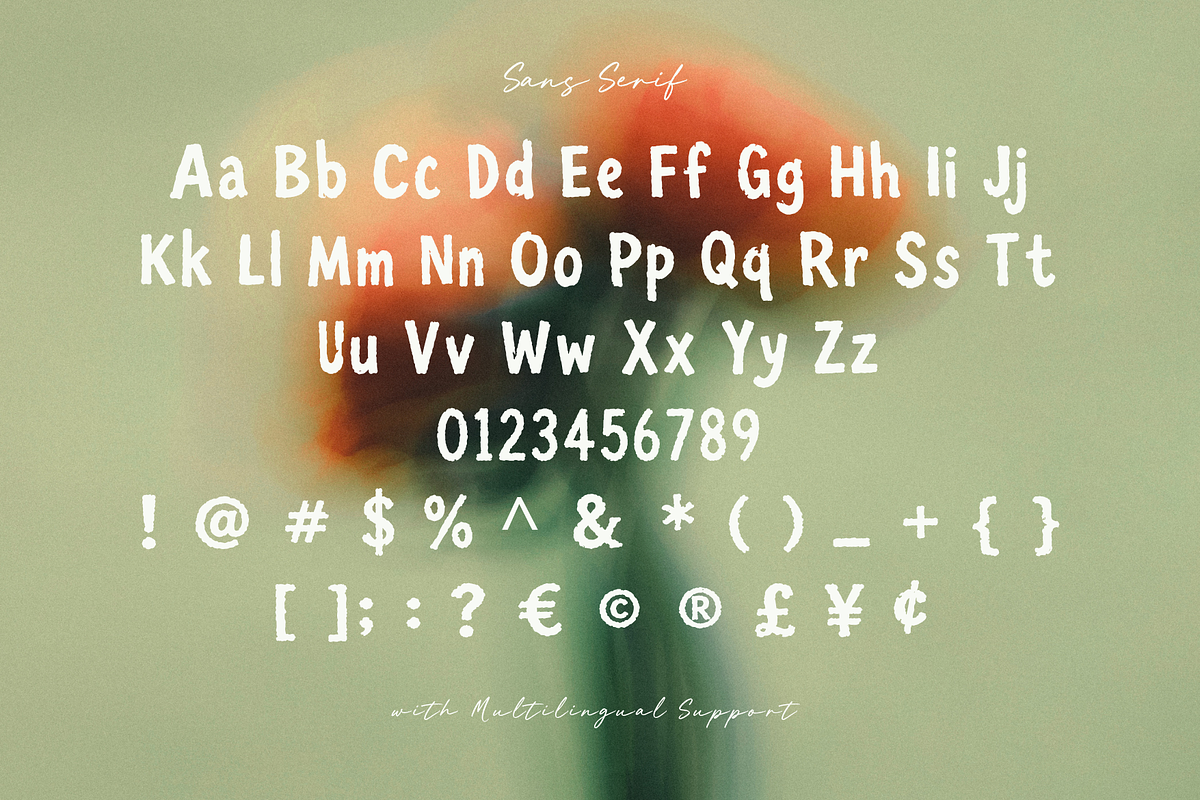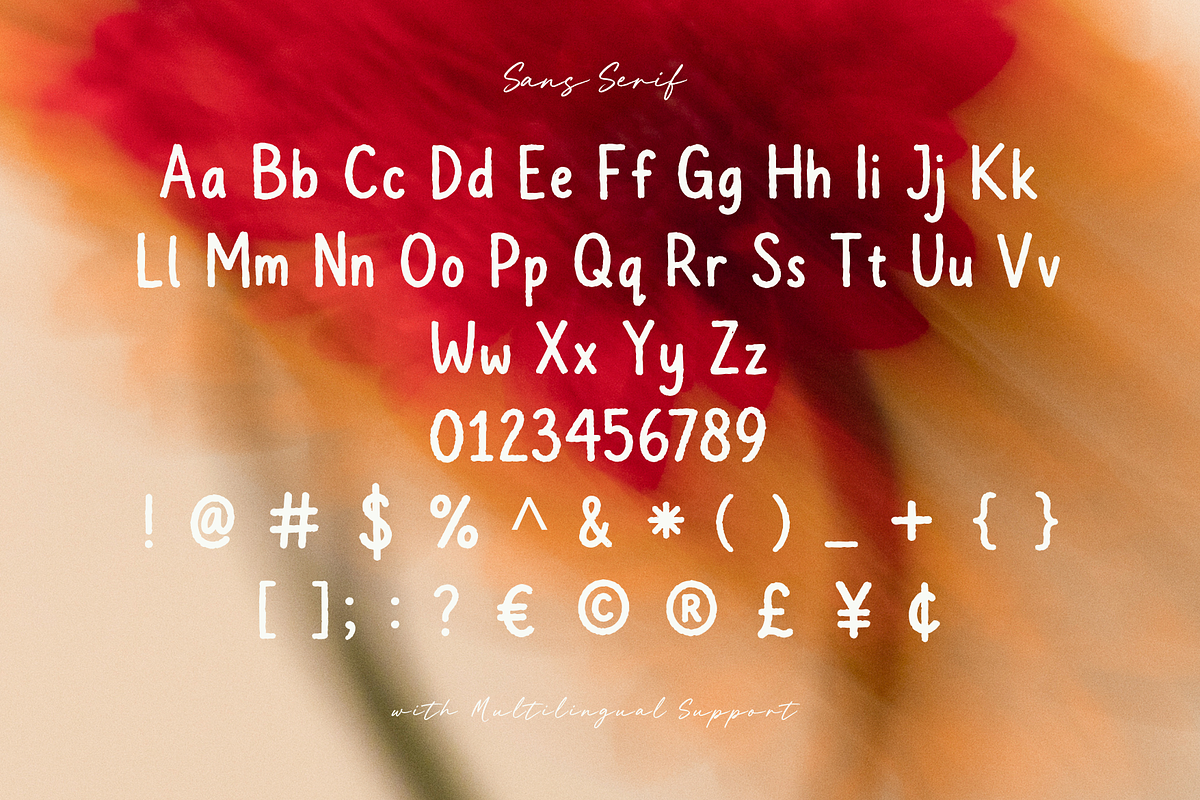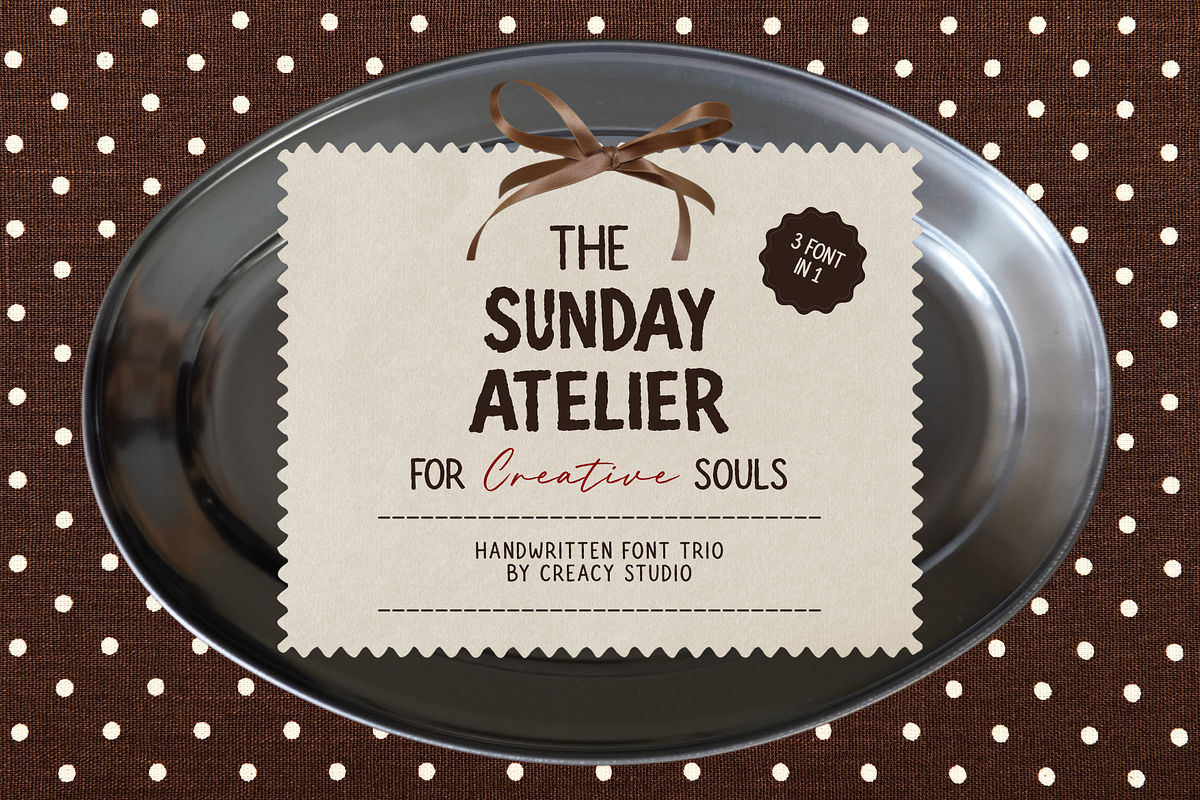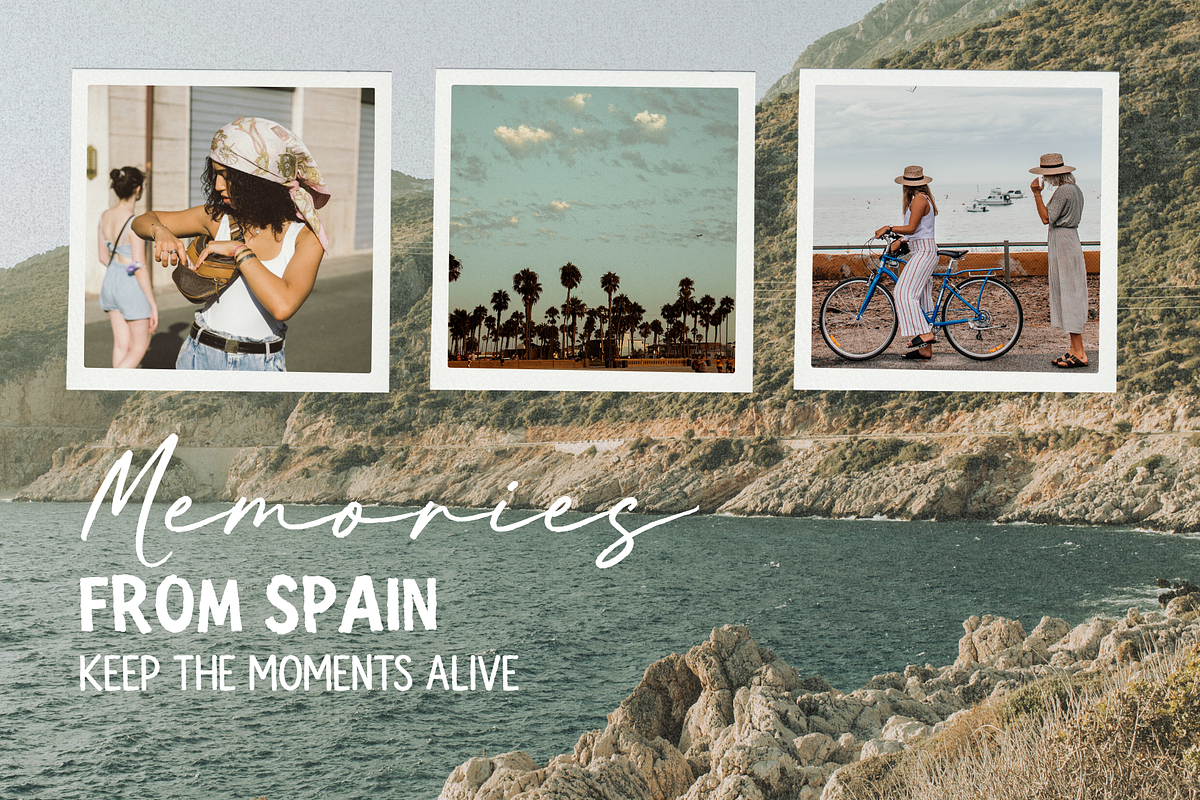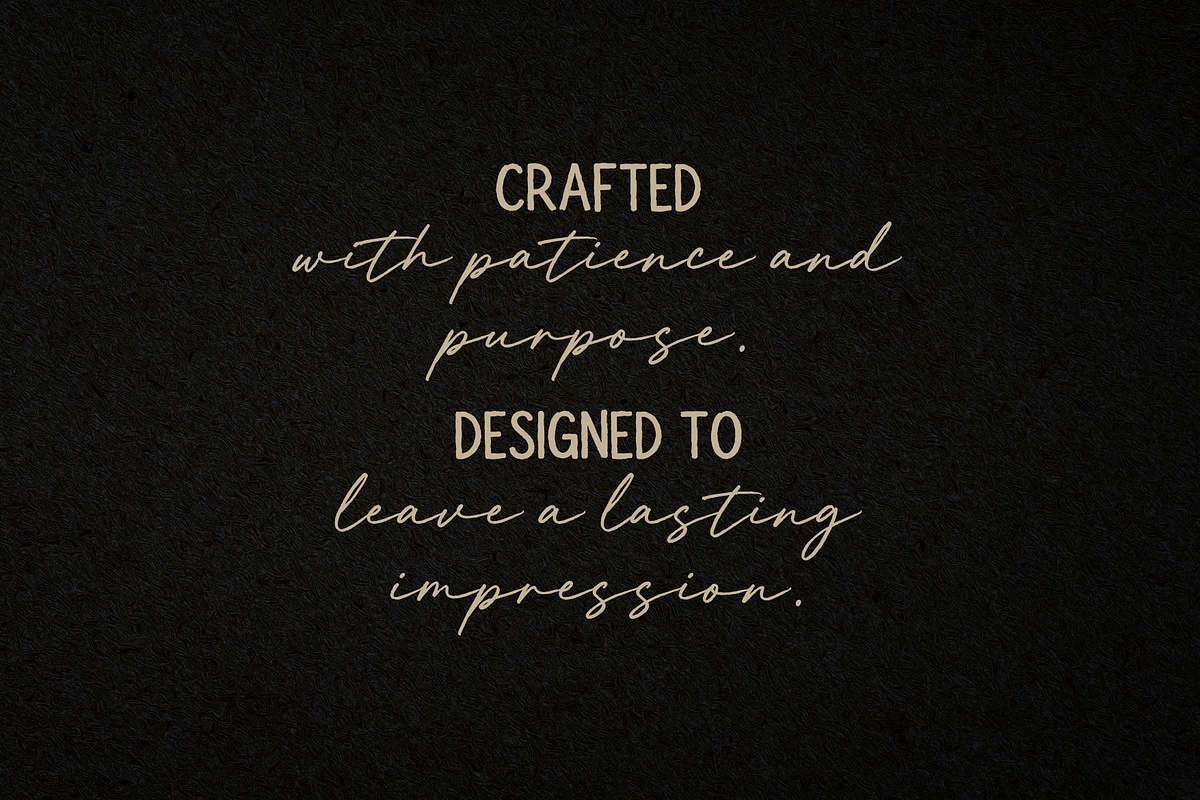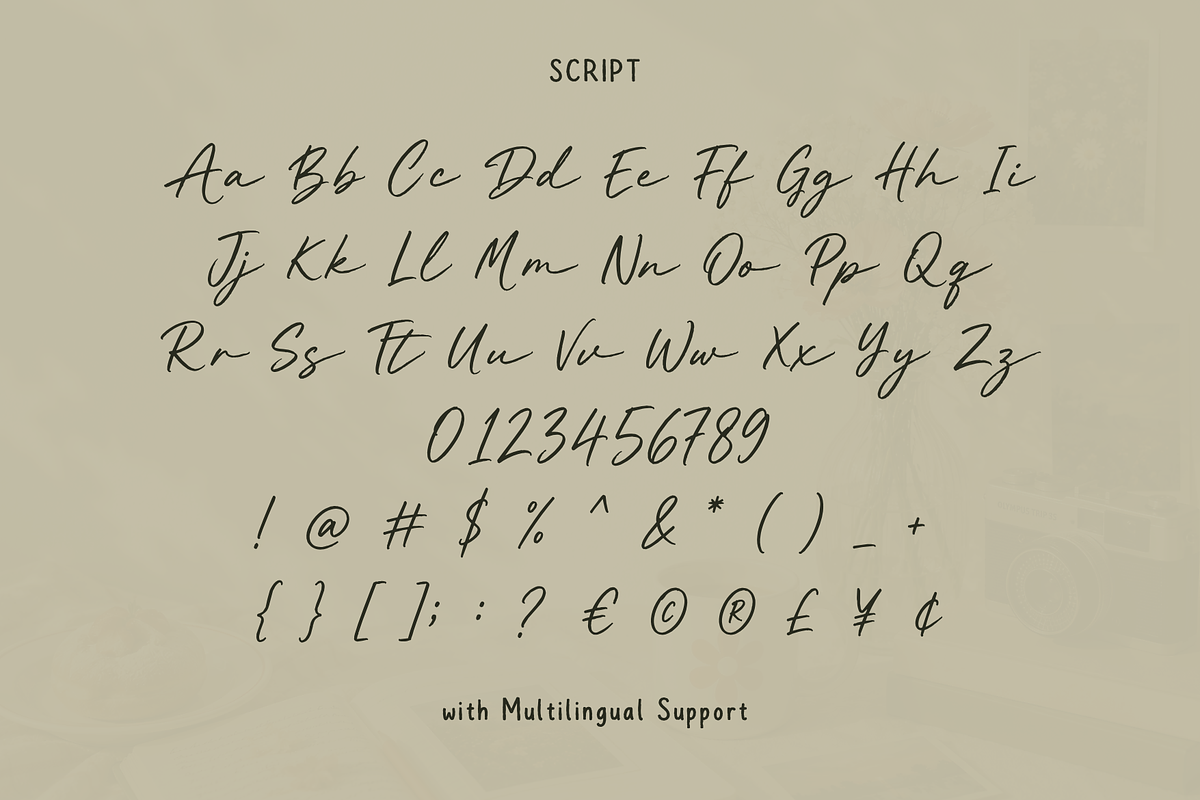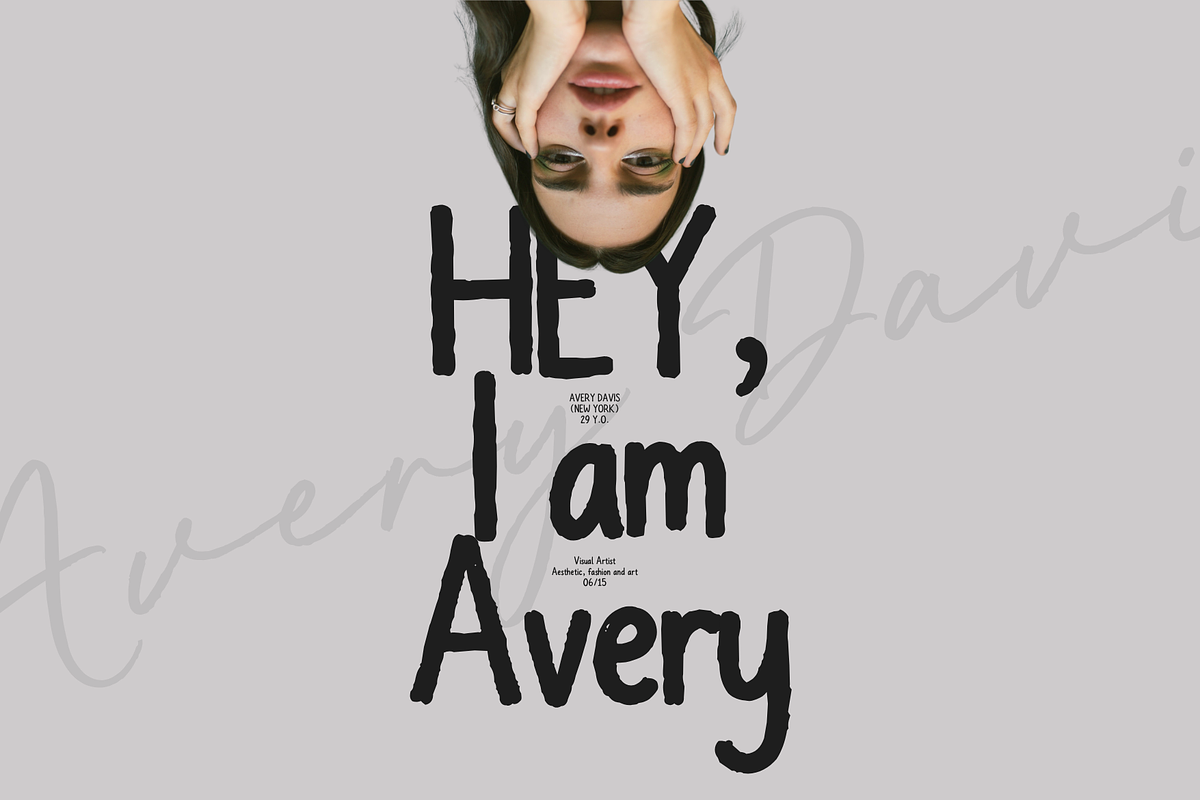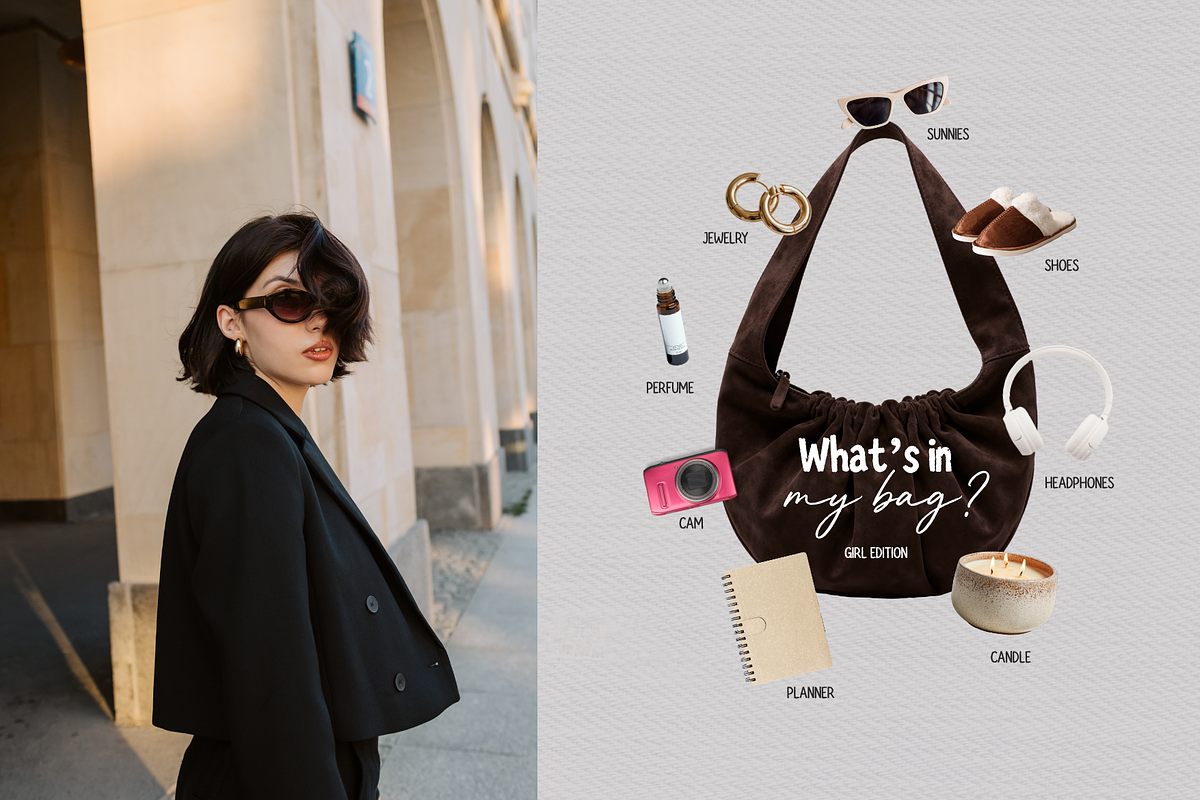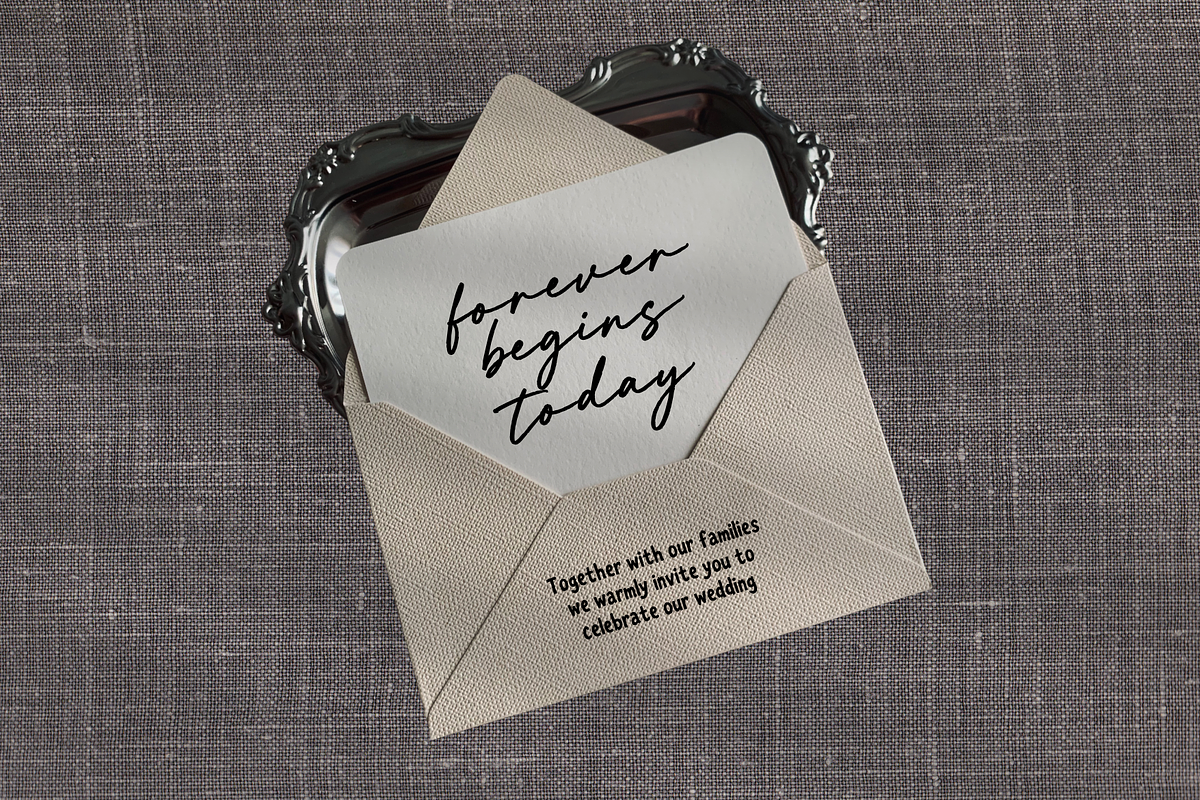
Sunday Atelier Font Trio
Sunday Atelier Font Trio is a versatile handwritten font collection designed to bring warmth, personality, and effortless style to your creative projects. This collection combines a natural handwritten script, a clean smooth companion font, and a set of hand-drawn doodles, giving you everything you need to create cohesive and expressive typography.
Inspired by authentic handwriting, the script features flowing strokes, balanced letterforms, and a relaxed rhythm that feels both elegant and approachable. The smooth companion font provides additional flexibility for layering, branding, and typography compositions, while the bonus doodles add playful decorative accents that complete the handcrafted look.
Whether you're designing a visual identity, product packaging, social media graphics, invitations, or editorial layouts, Sunday Atelier helps create designs that feel personal, creative, and memorable.
Sunday Atelier Script
Sunday Atelier Clean
Sunday Atelier Rough
Uppercase & lowercase letters
Multilingual language support
Designed to work beautifully together, each style complements the others, making it easy to create layered typography, eye-catching branding, and handcrafted compositions without additional design elements.